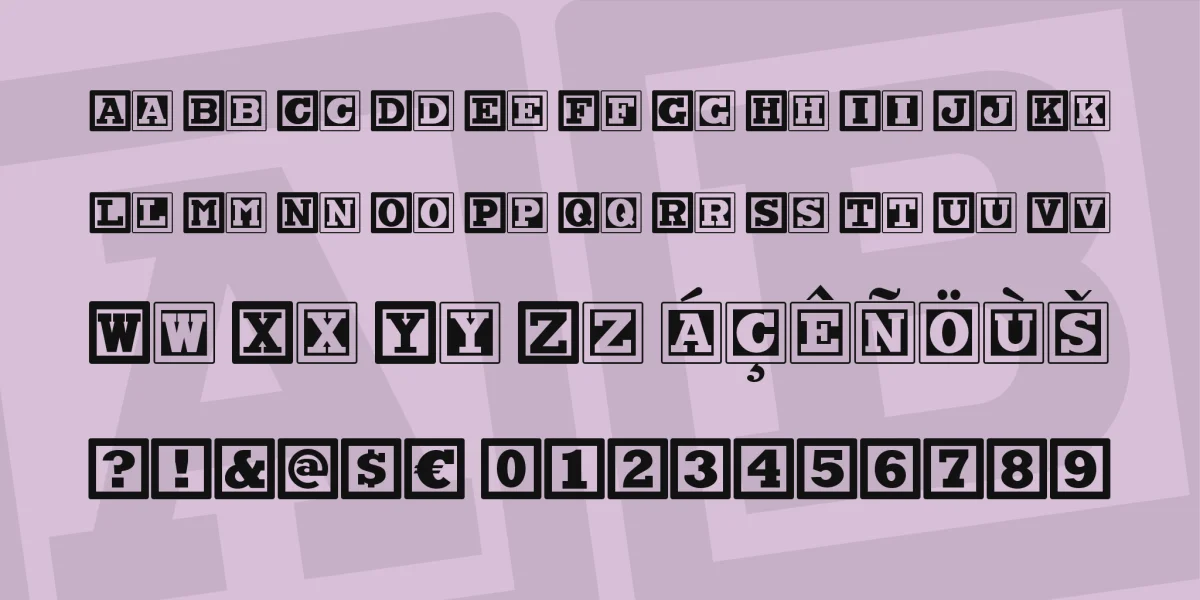
No mystery here: this typeface derives its inspiration from children’s wooden blocks.
The uppercase letters are on a light ground, and the lowercase letters are reversed, so you can mix-and-match upper and lower to create the random nature of words or phrases constructed with real blocks.